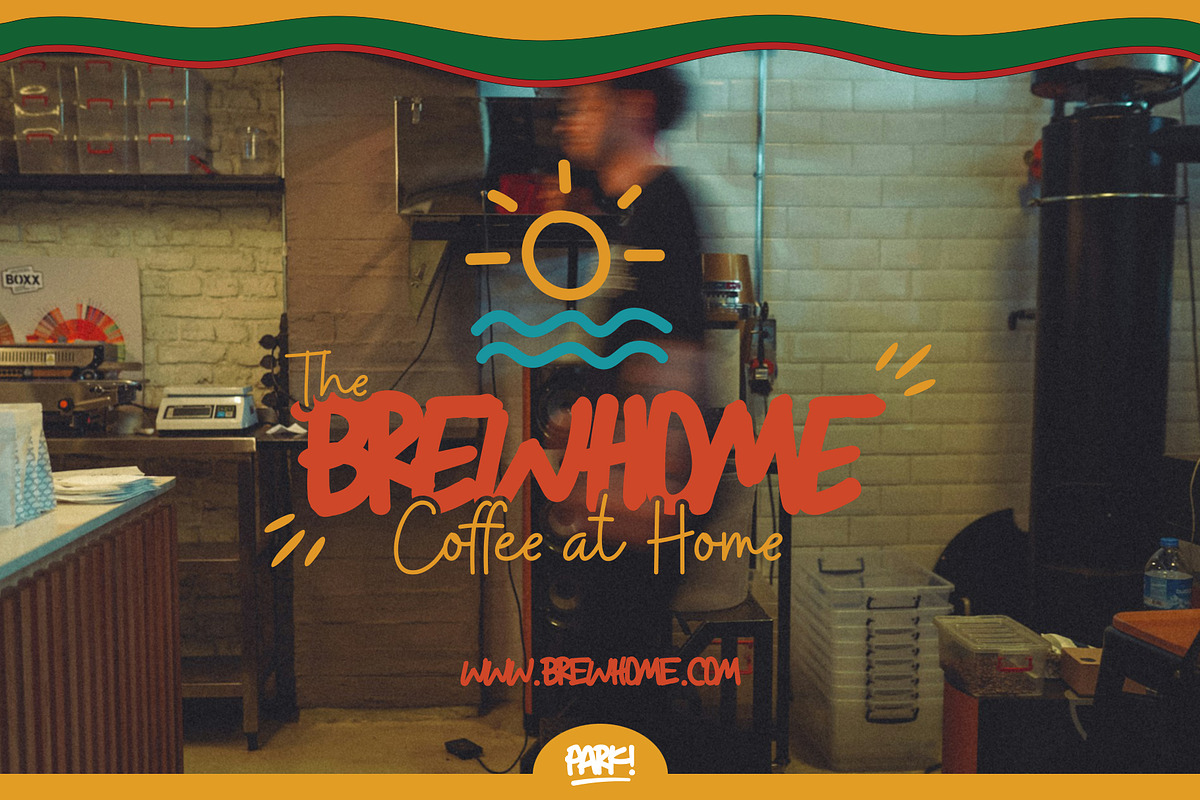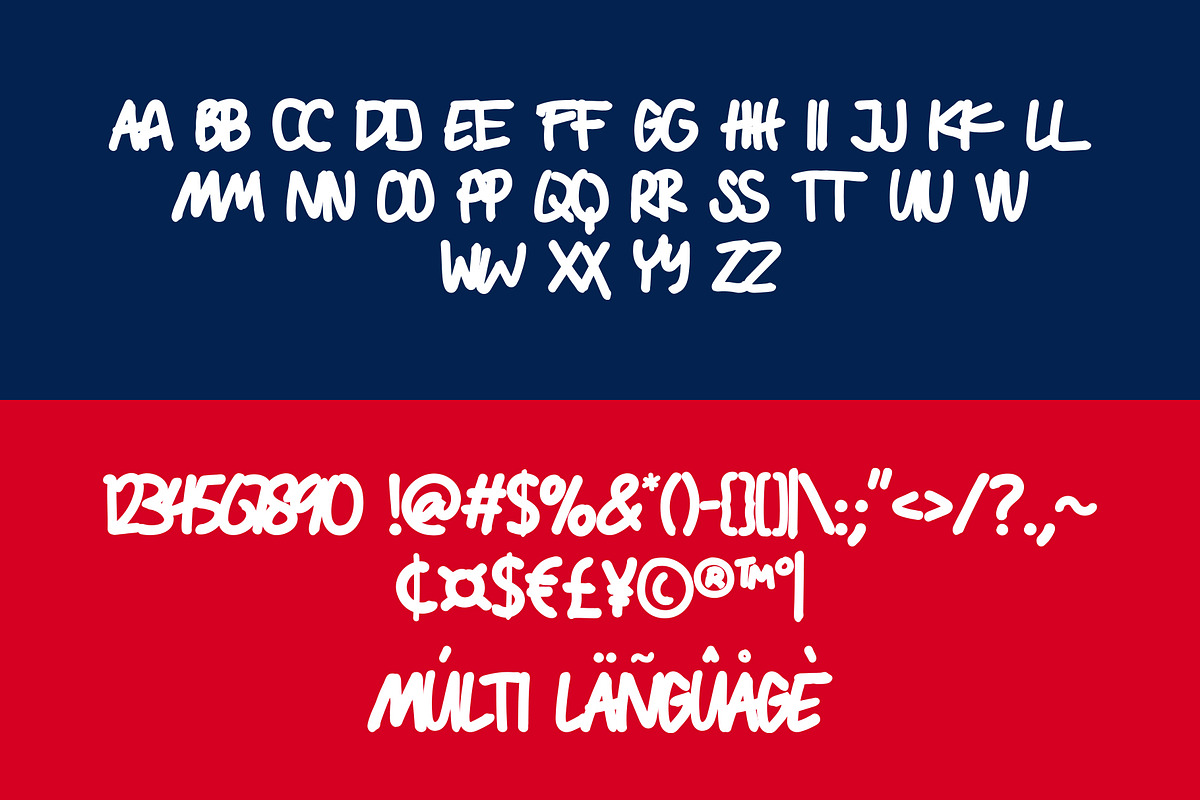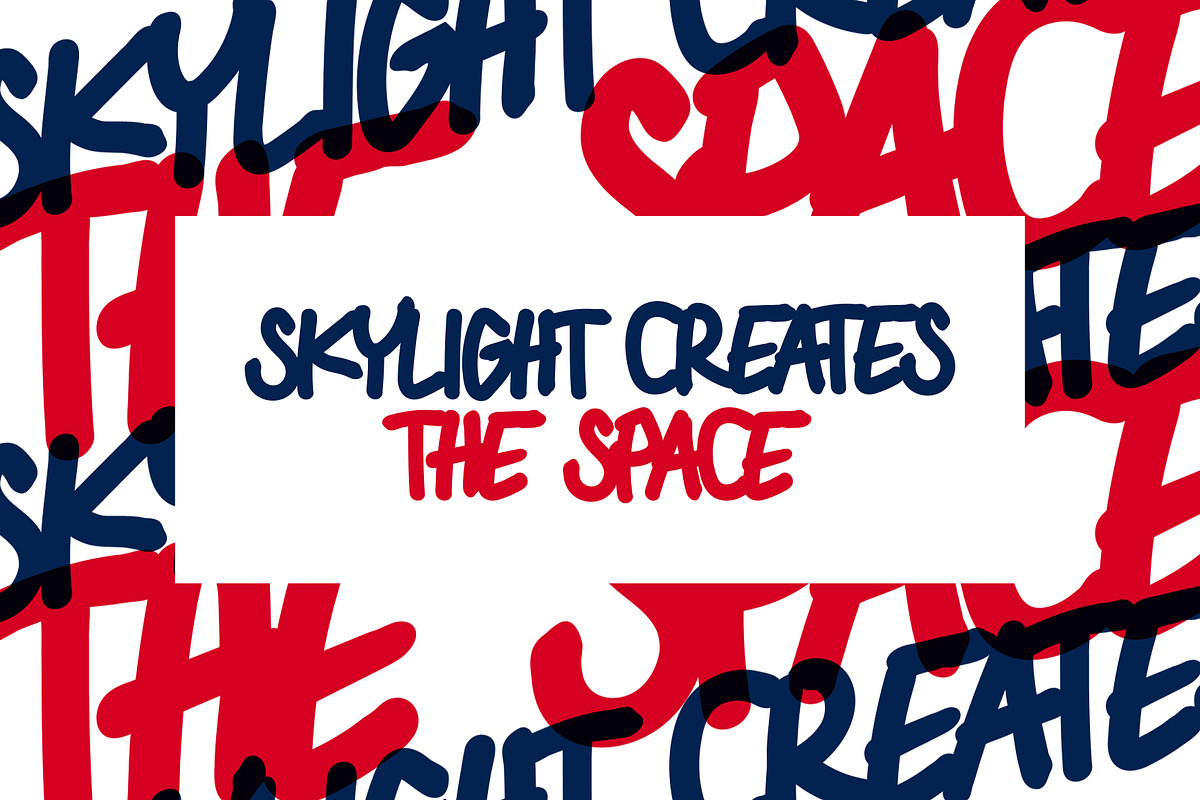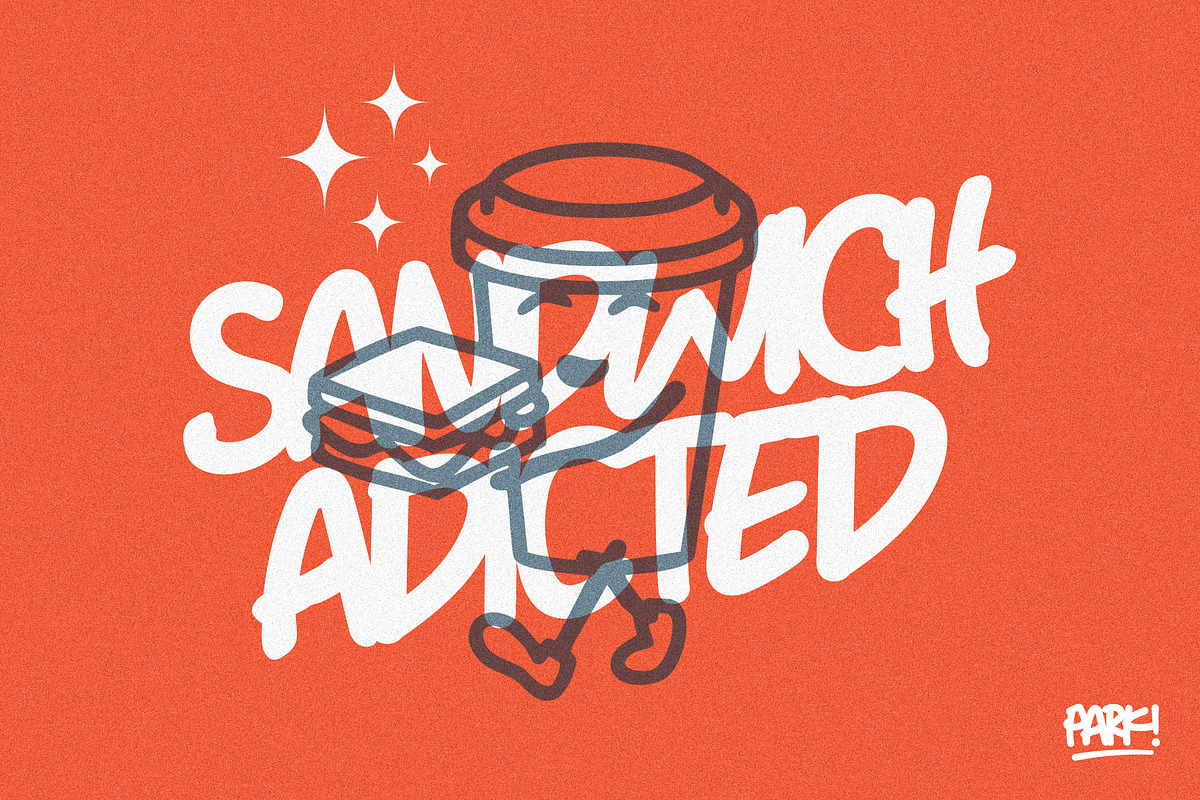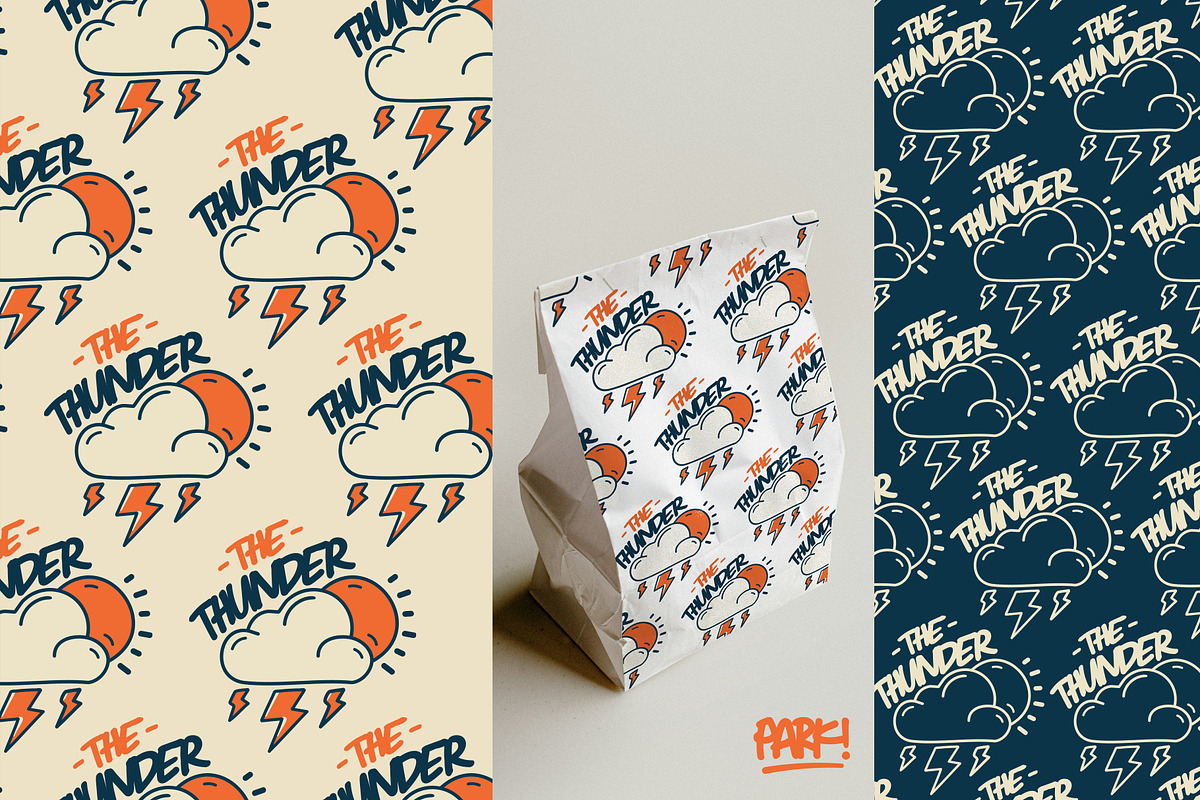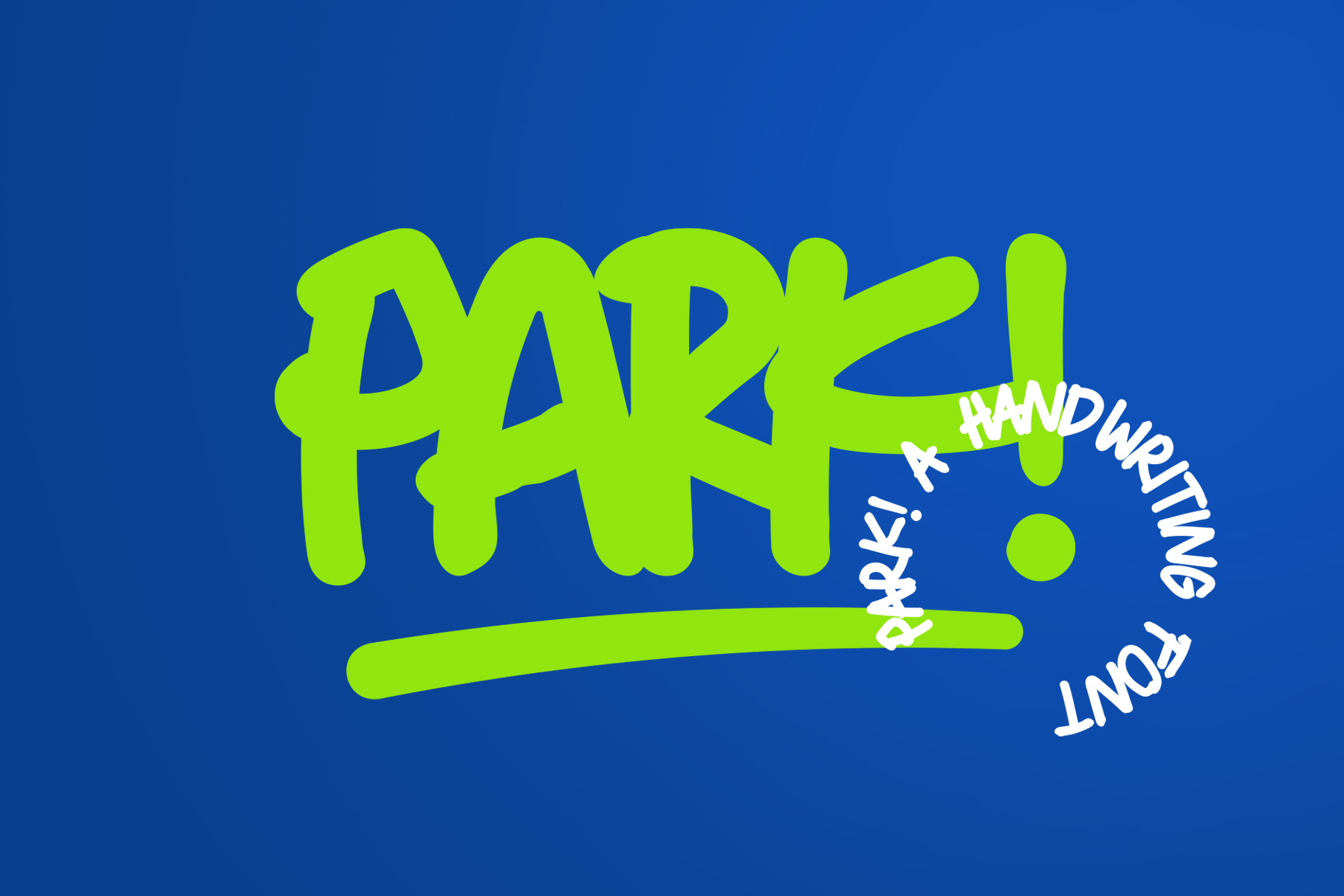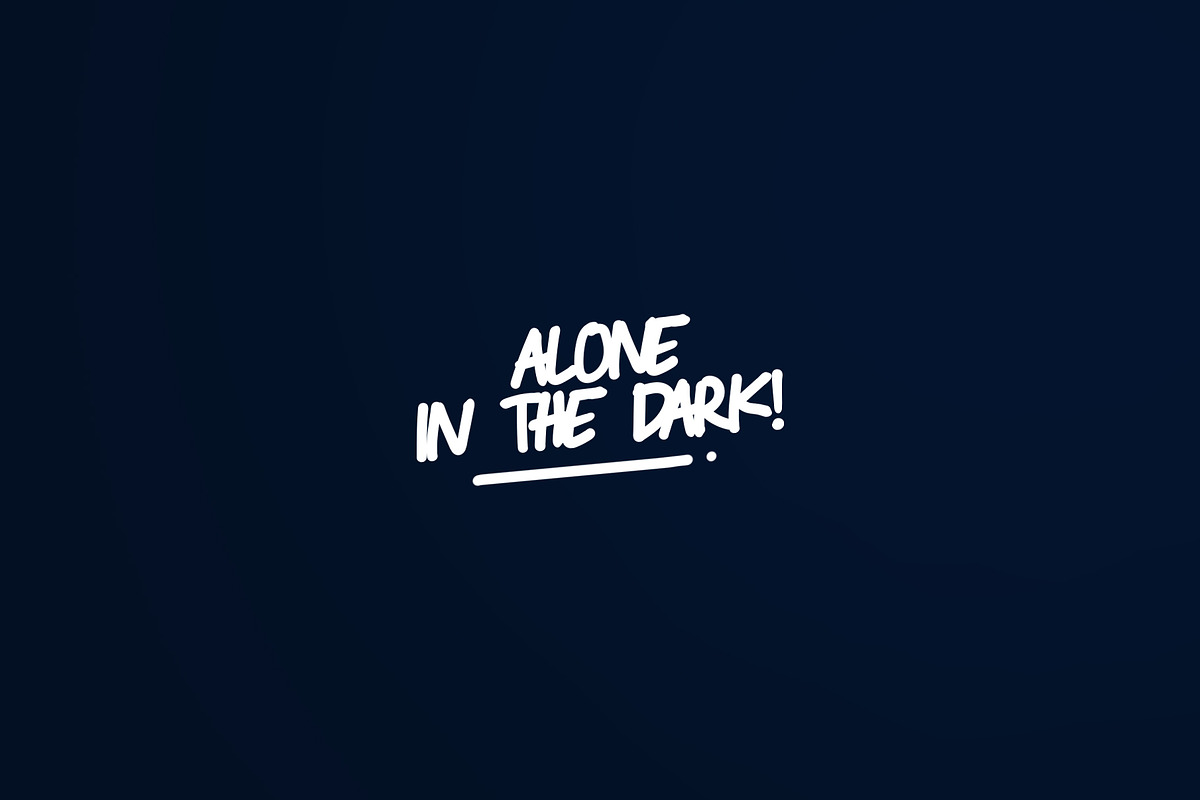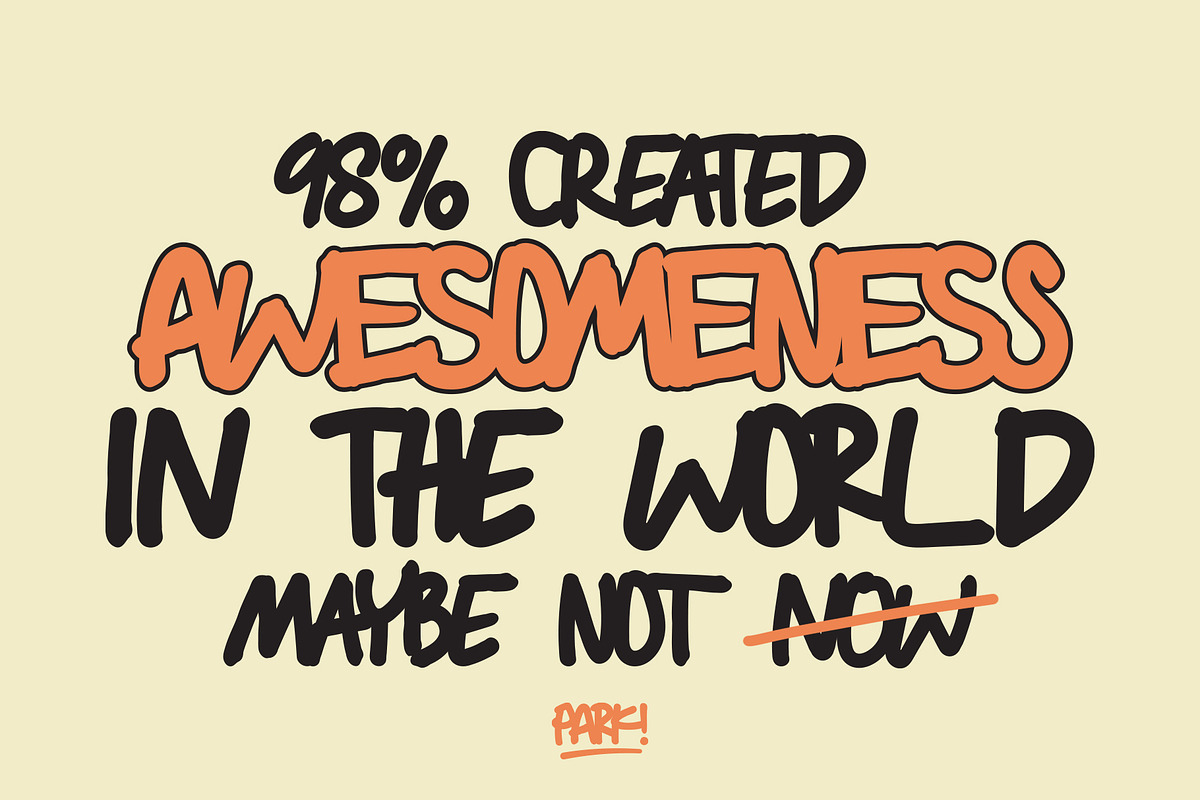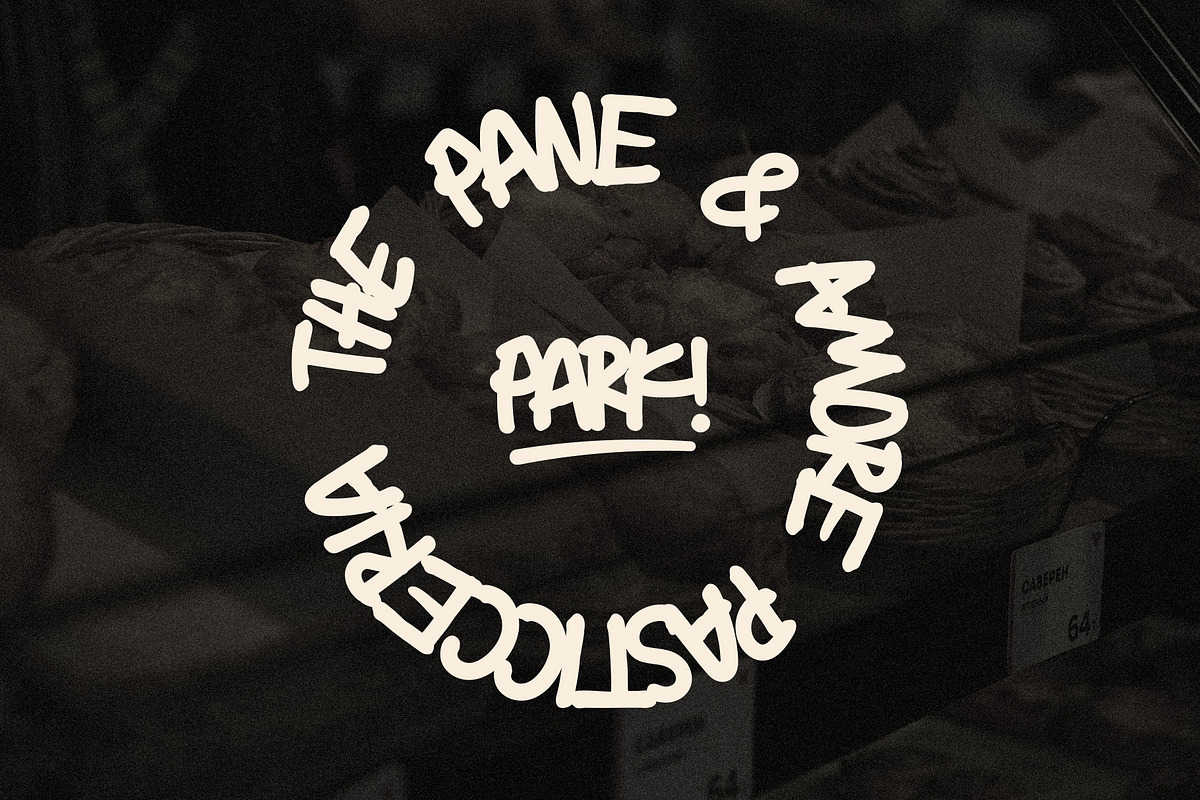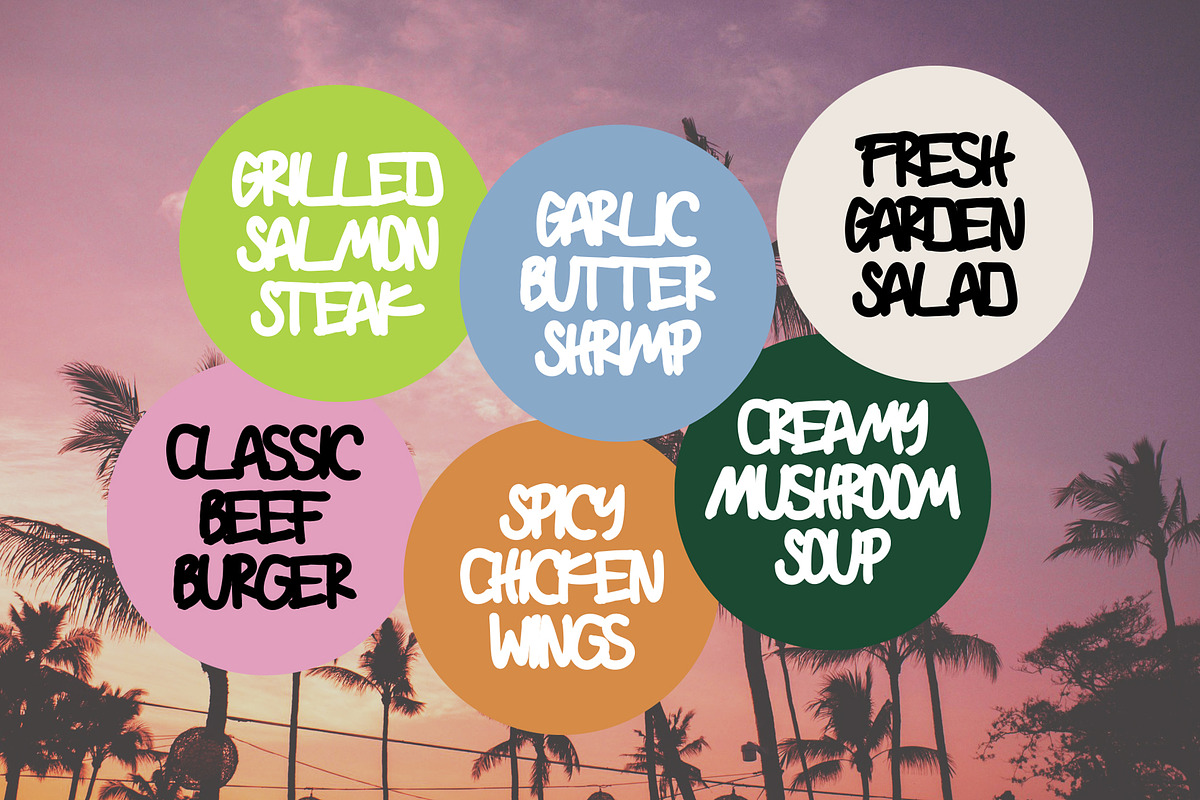
Park - A Handwriting Font
Park! – A Bold Handwriting Font
Bring energy, fun, and personality to your design projects with Park!, a bold and playful handwriting font inspired by street art and modern graffiti vibes. Its thick strokes, casual flow, and dynamic shapes make it perfect for eye-catching typography that stands out everywhere. Whether you’re working on posters, branding, packaging, social media graphics, or merch, Park! adds a vibrant handwritten touch that feels both expressive and stylish.
- All Caps letters
- Perfect for display and creative projects
Great for:
- Logos & branding
- Posters & flyers
- Apparel design
- Packaging & labels
- Social media posts
- Creative quotes
Make your designs pop with Park!, the handwriting font that turns every word into a bold statement.